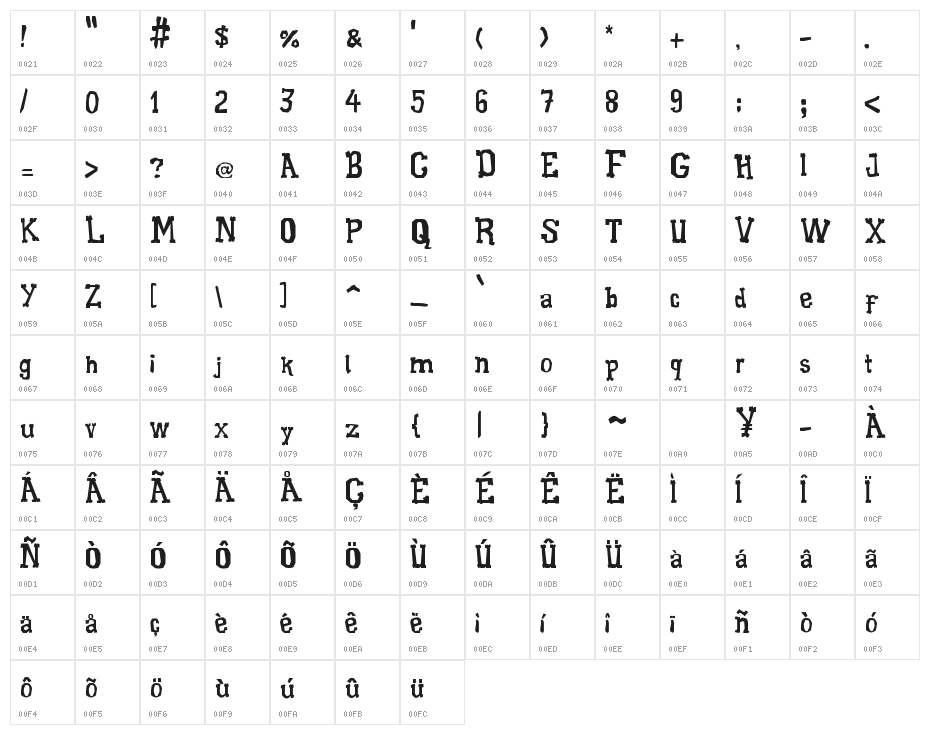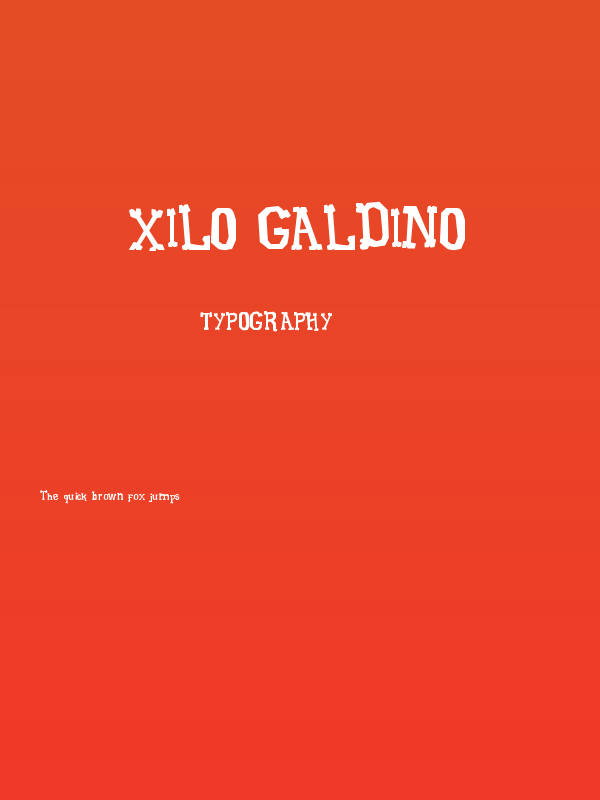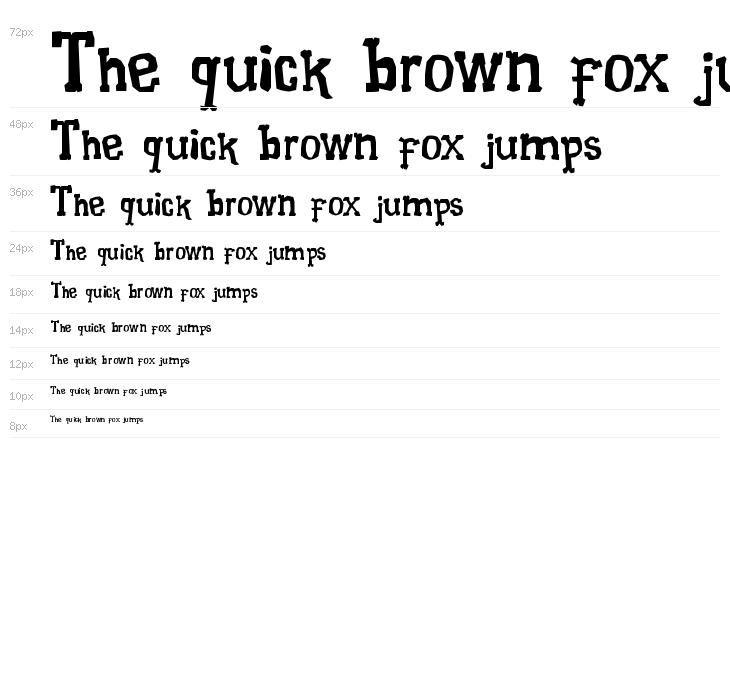
Xilo Galdino Font
Xilo Galdino Description
This font features a bold and rugged design with a distinctly handcrafted appearance. The characters are uneven and irregular, giving it a unique, organic feel. The uppercase letters are tall and imposing, while the lowercase letters maintain a consistent style with slightly less height. Numbers and special characters follow the same aesthetic, adding to the font's cohesive look. The strokes are thick and vary in width, contributing to a high contrast that enhances readability and visual interest. This font's distinctive style makes it suitable for projects that require a bold, eye-catching typeface.
| Proposed Projects | Ideal for posters, album covers, branding, and any project needing a bold, artistic touch. |